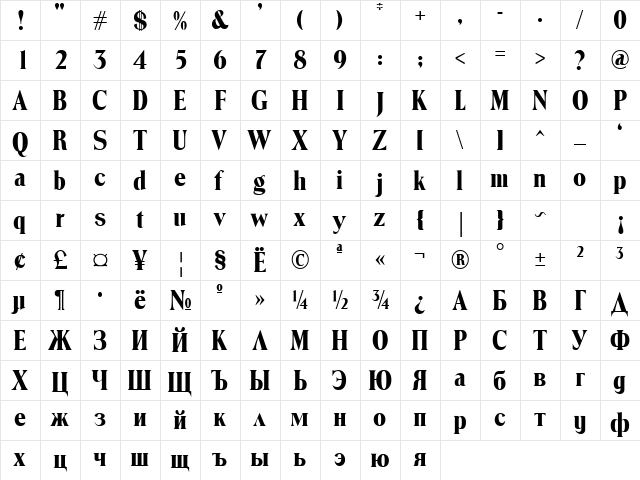
TrooverRoman Normal
Design Context for TrooverRoman Typeface
TrooverRoman takes a measured approach to typography — its balanced proportions and neutral character make it a reliable workhorse for both digital and print work.